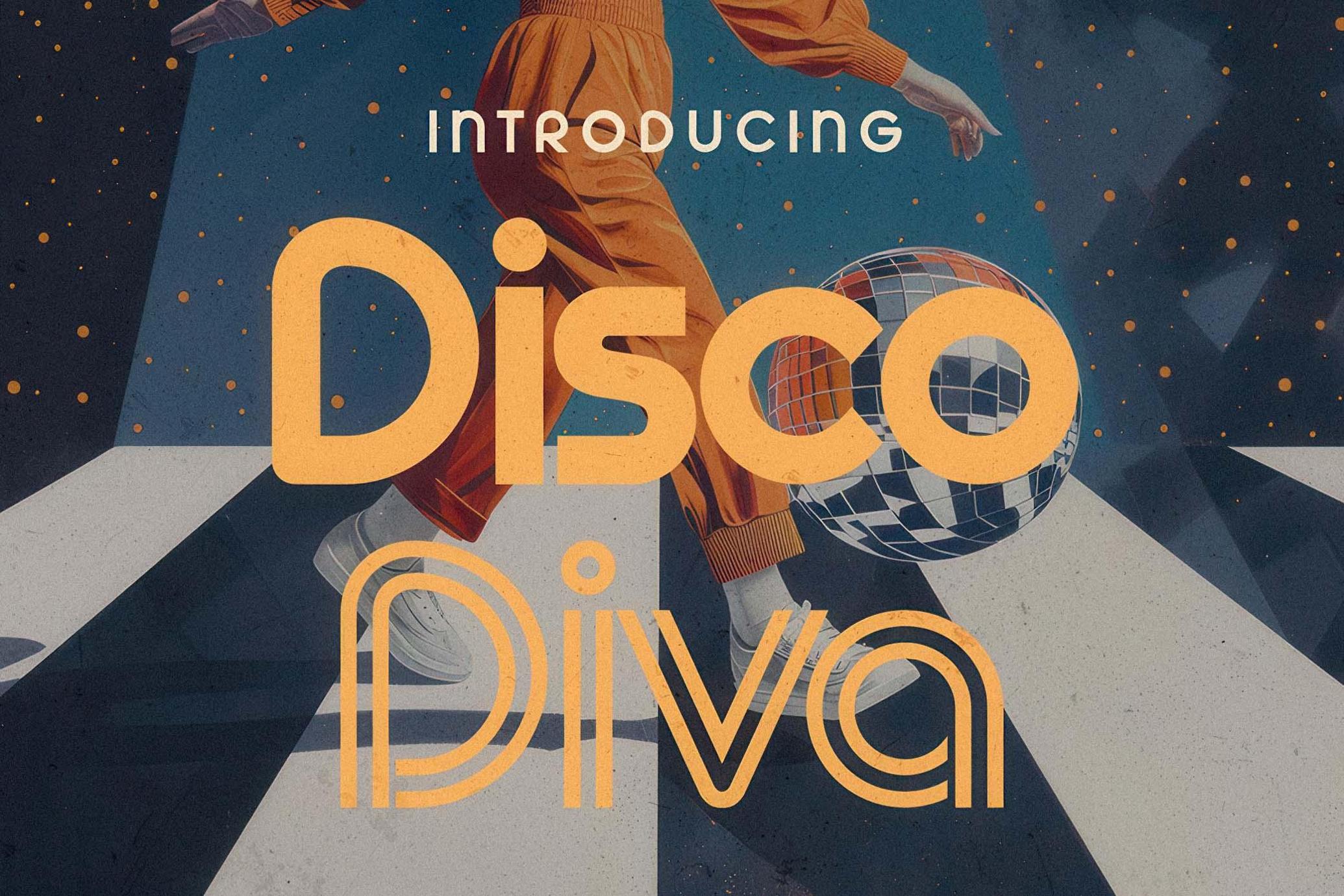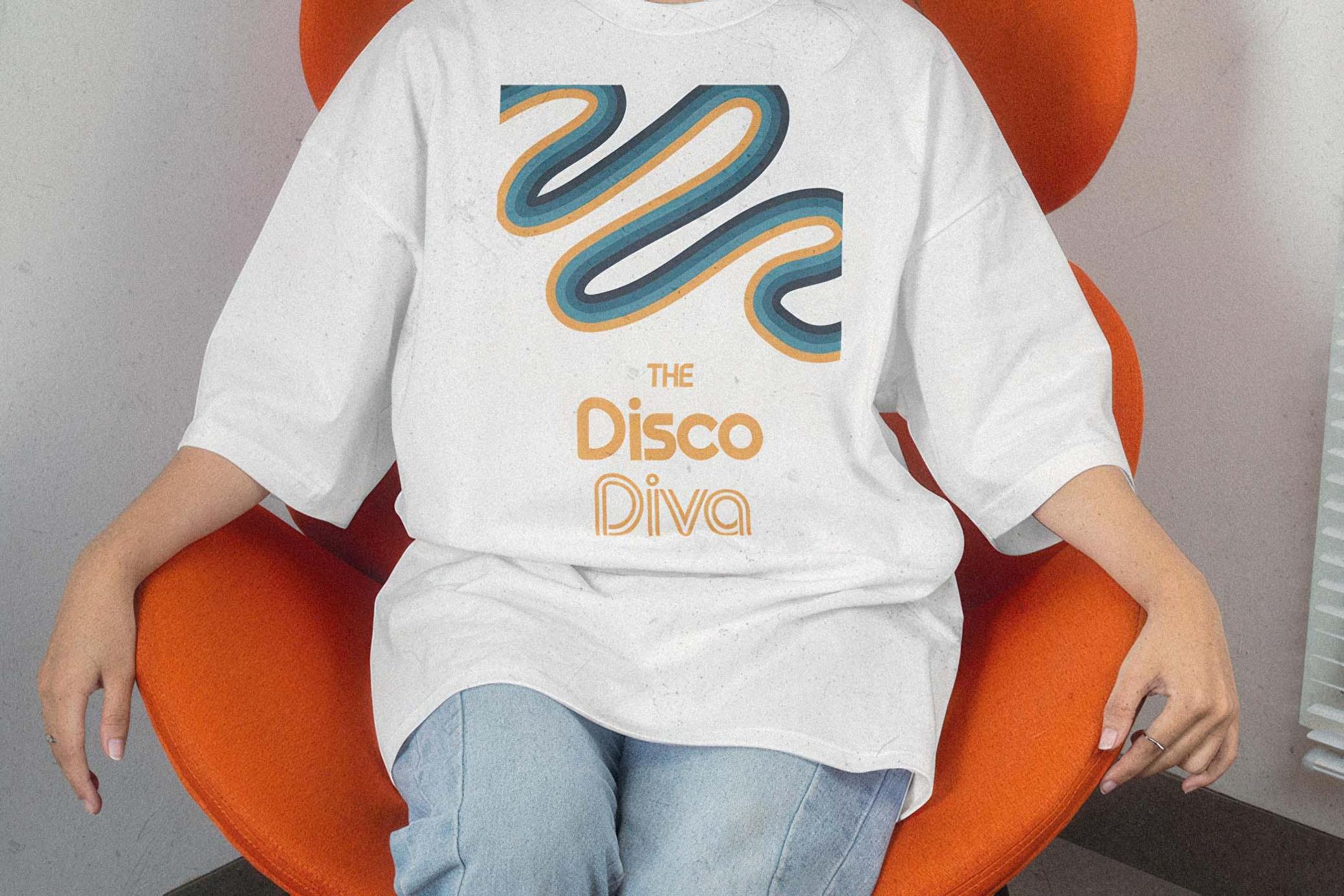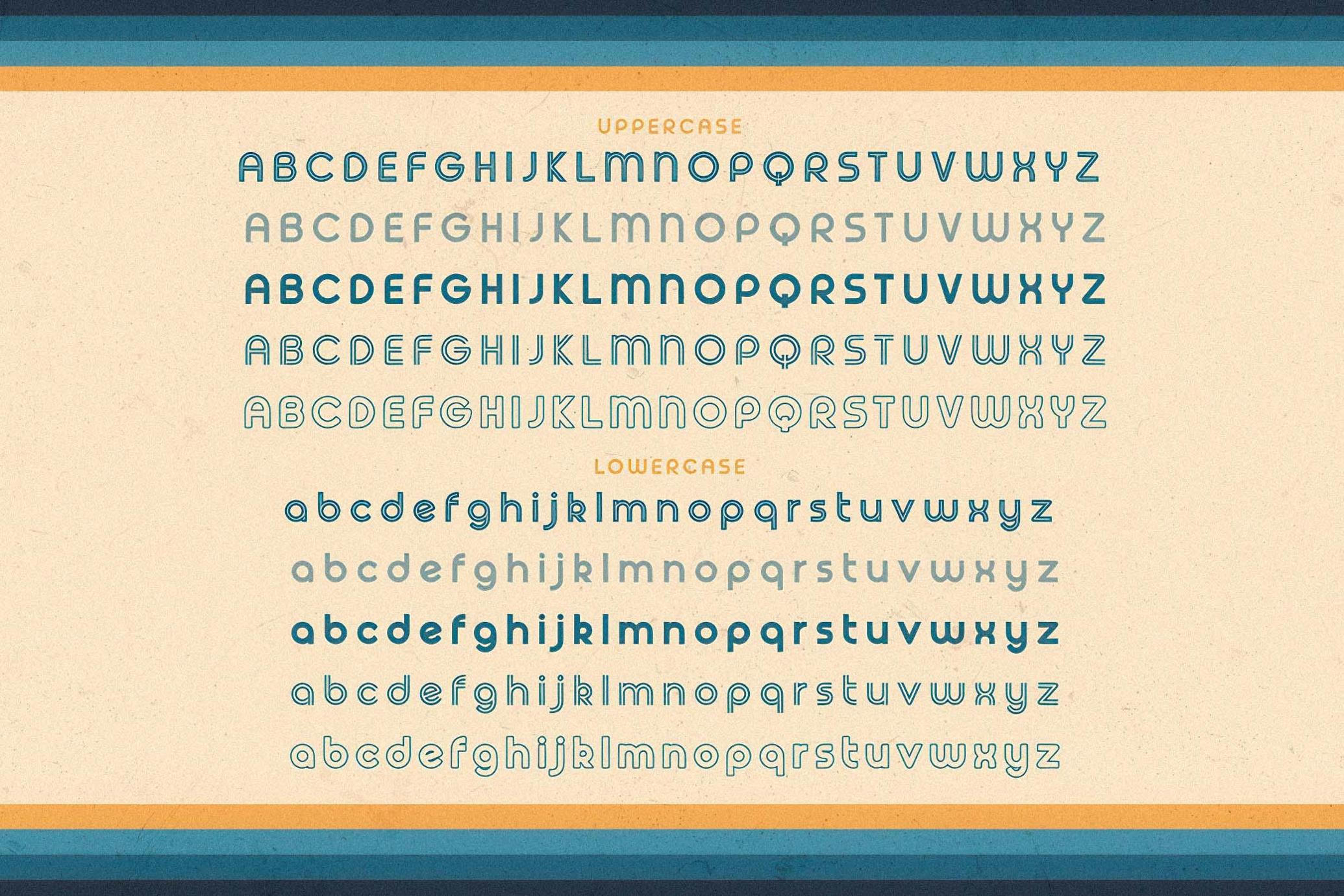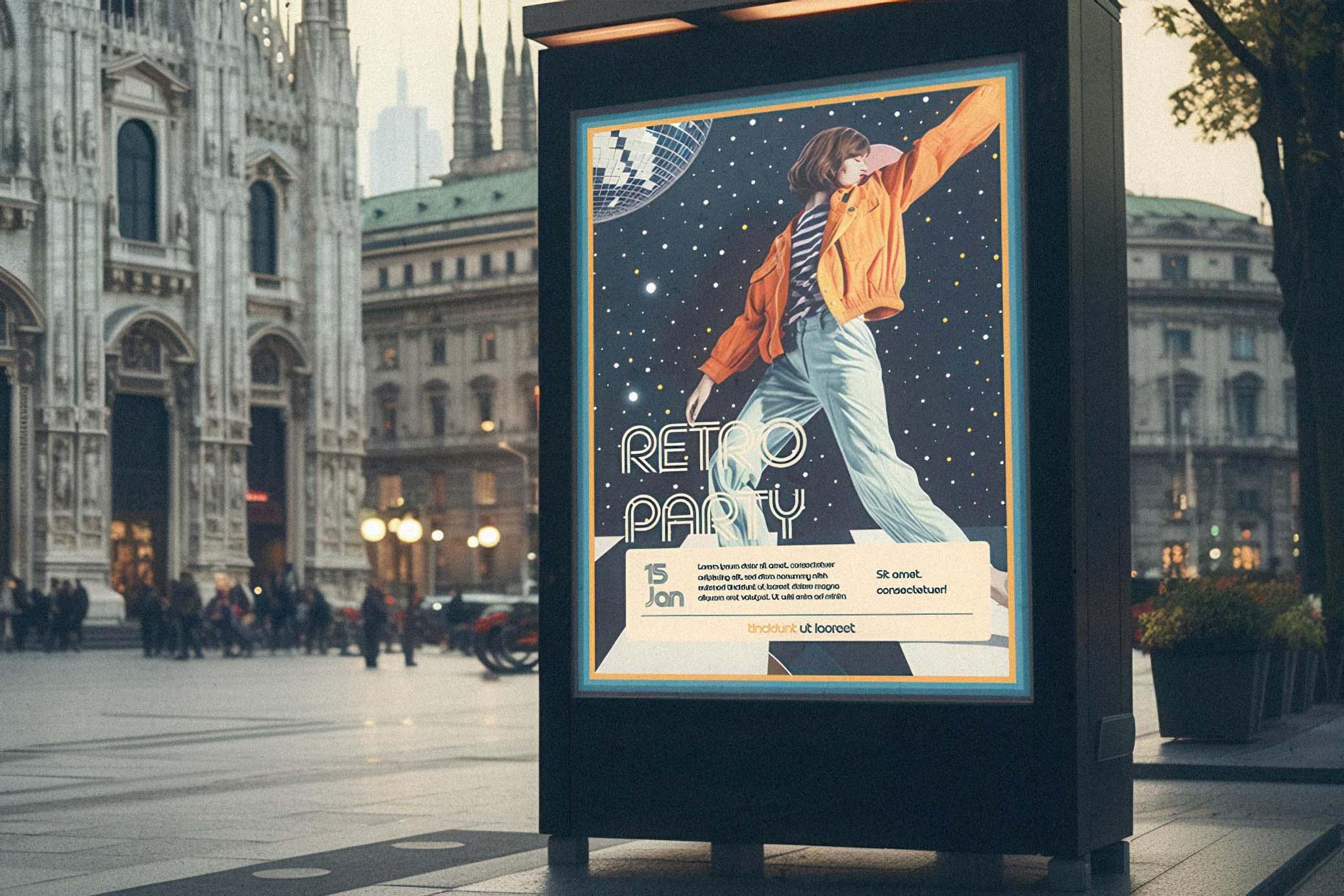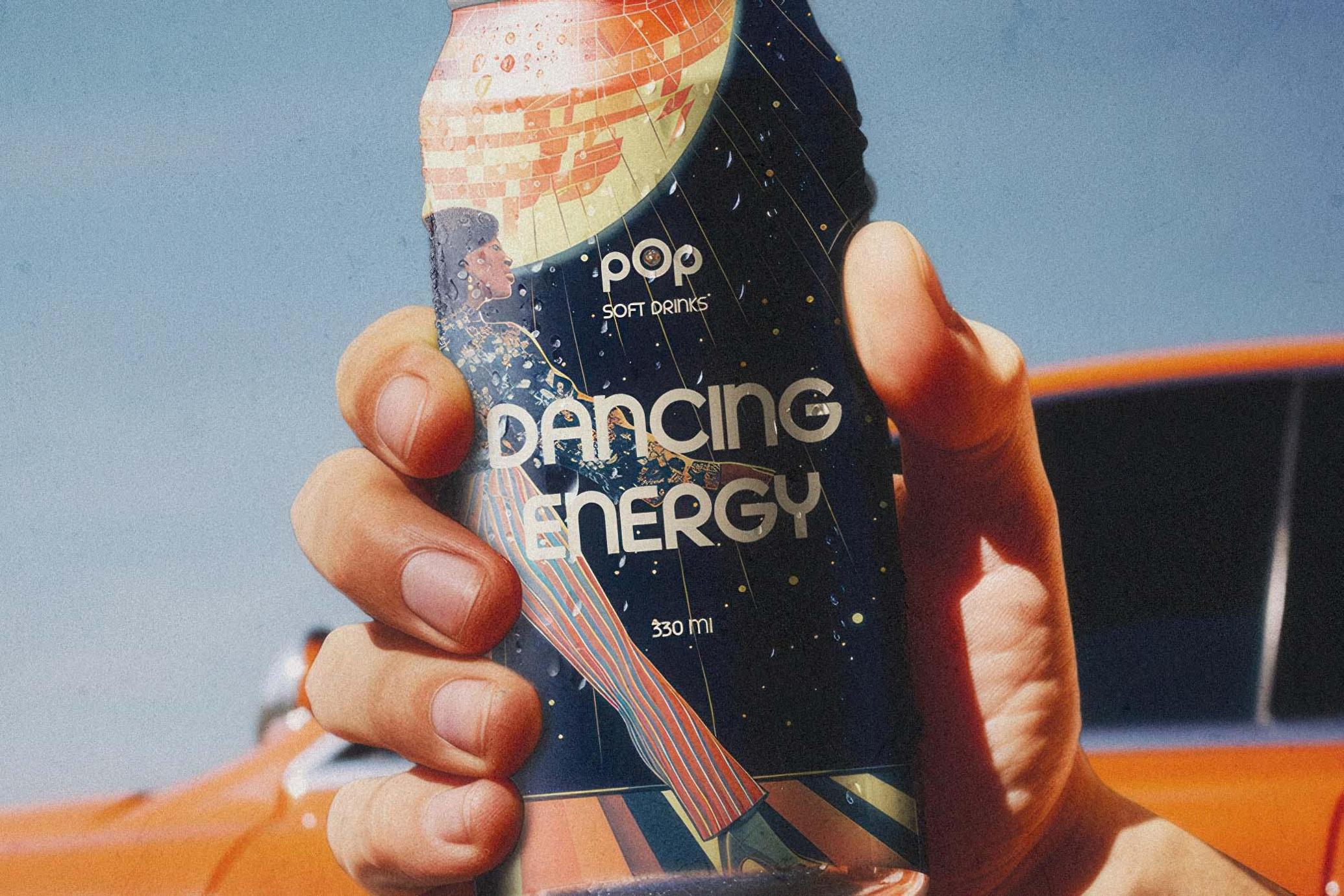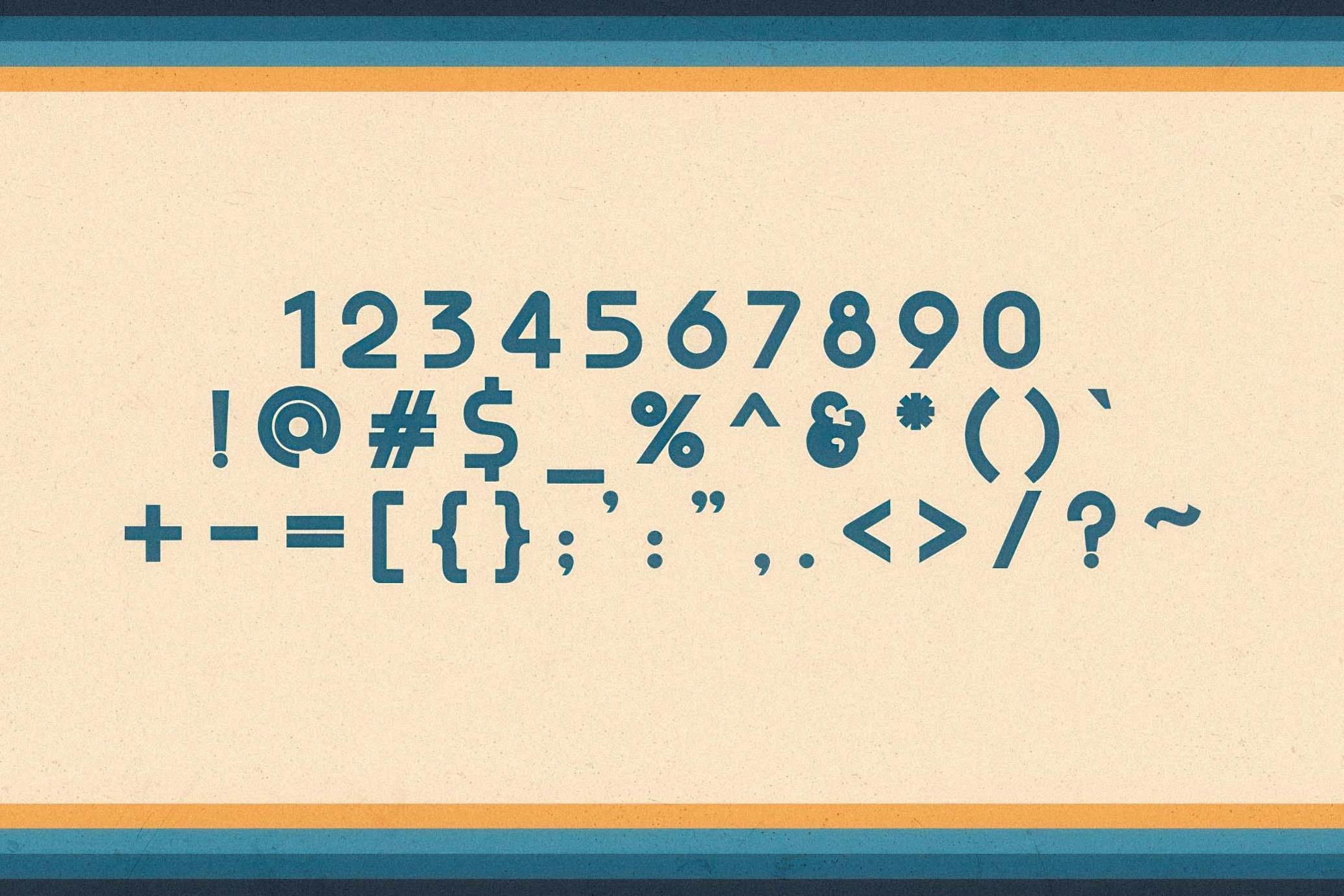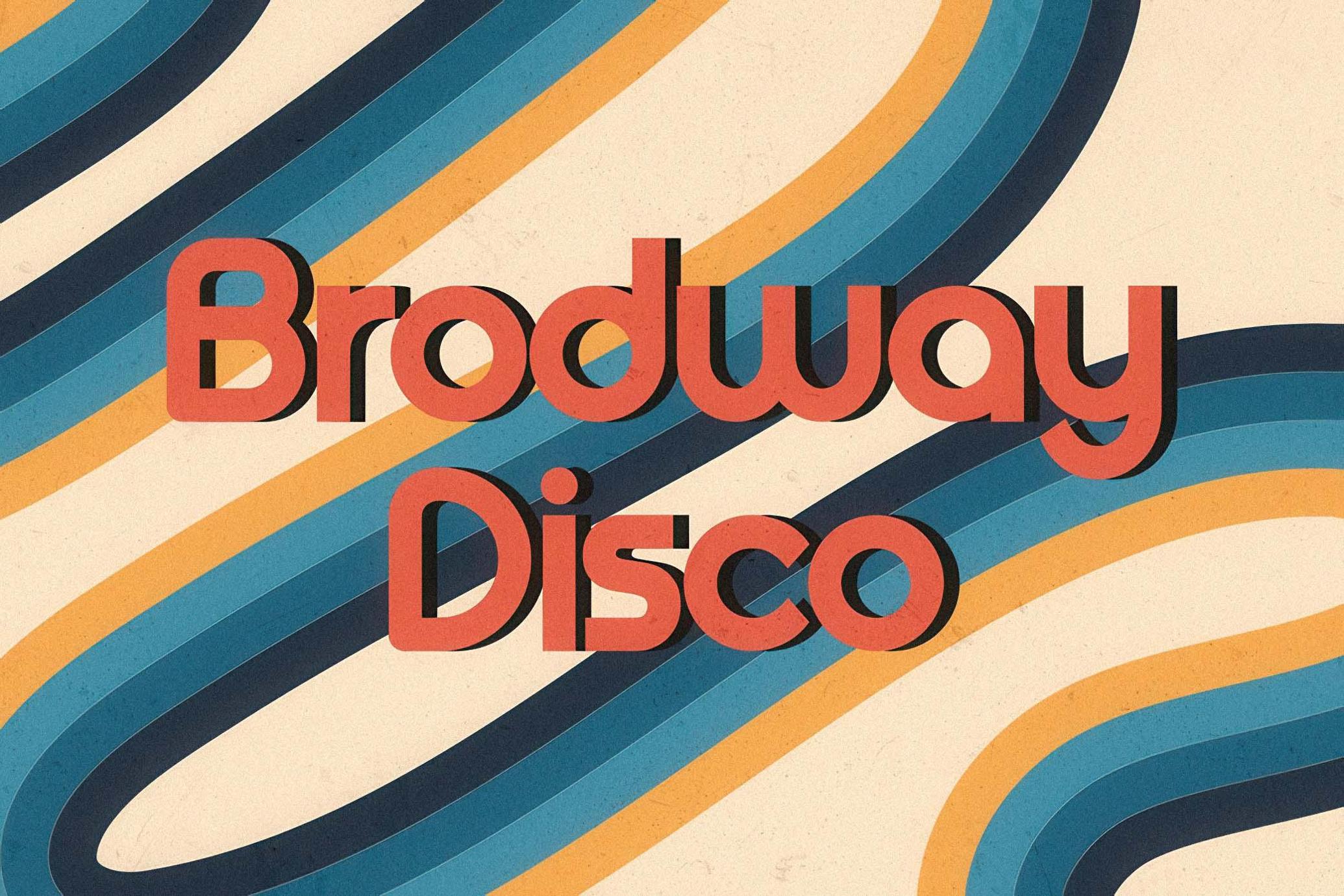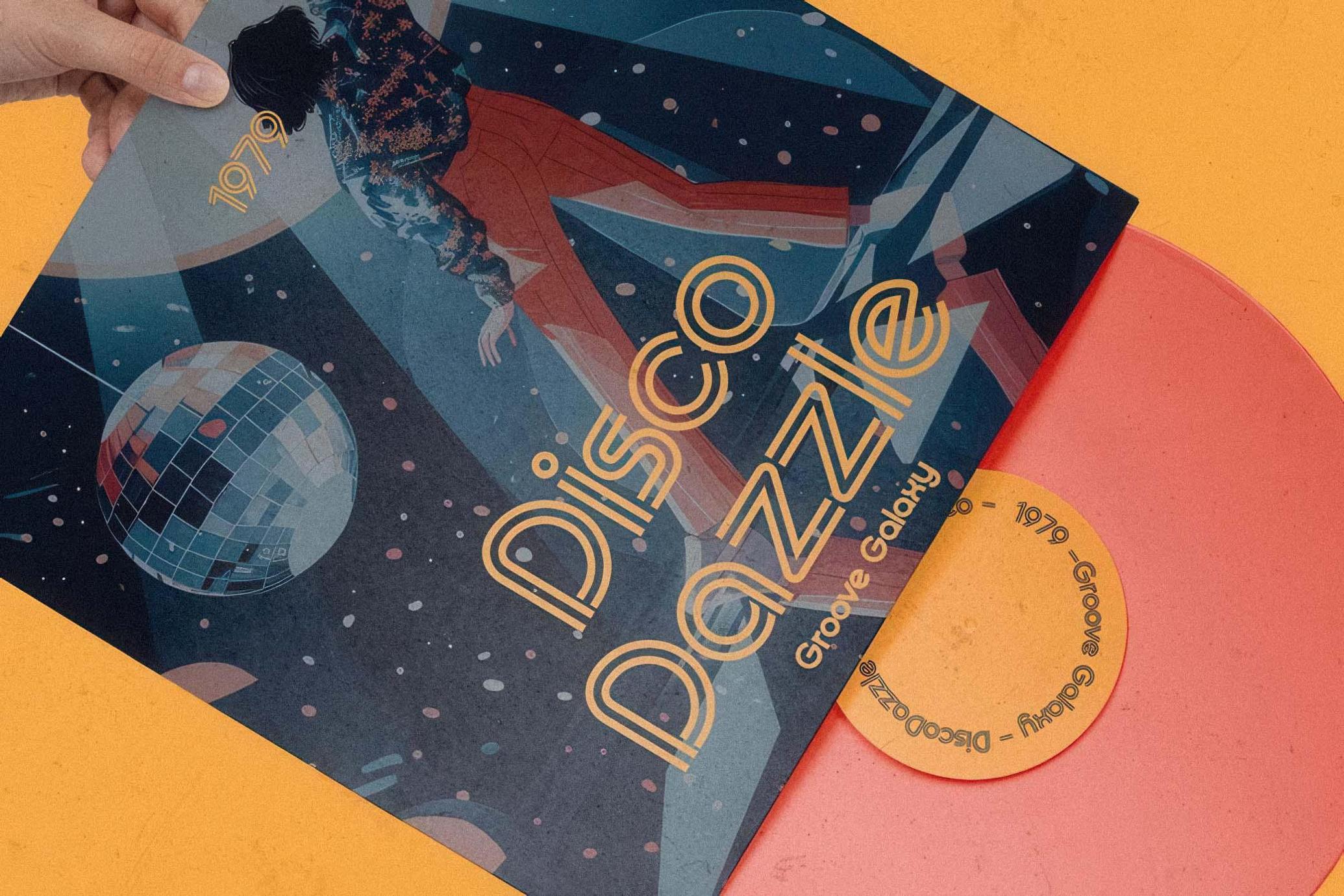
Disco Diva - Groovy Typeface
Get ready to boogie with Disco Diva, the ultimate funky and groovy typeface inspired by the dazzling disco era!
Perfectly capturing the essence of the 70s, Disco Diva brings a burst of vibrant energy to any project. With four unique flavors—Line, Regular, Sketch, and Inline—this typeface offers endless creative possibilities.
Whether you're designing posters, invitations, branding, or digital content, Disco Diva will make your work shine with its retro charm and irresistible flair. Let the dance floor light up with the electrifying spirit of Disco Diva!